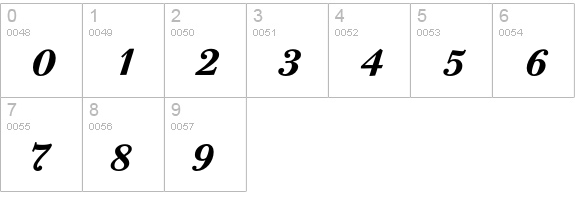
BodoniSixEF-BoldItalic Font Details
BodoniSixEF-BoldItalic is a striking and elegant font that effortlessly combines modernity with a touch of classic sophistication. Its bold and italic style exudes confidence and style, making it perfect for adding a touch of luxury to any design project. The sleek lines and graceful curves of BodoniSixEF-BoldItalic make it an ideal choice for headlines, logos, invitations, and more. What sets BodoniSixEF-BoldItalic apart is not only its timeless design but also the fact that it is freely available to download at FontsMarket.com. This means you can access this premium font without any cost, making it a fantastic choice for designers looking to elevate their work without breaking the bank. Download BodoniSixEF-BoldItalic today and add a touch of class to your next project!